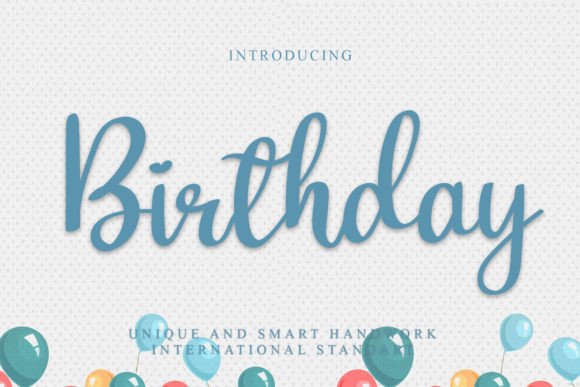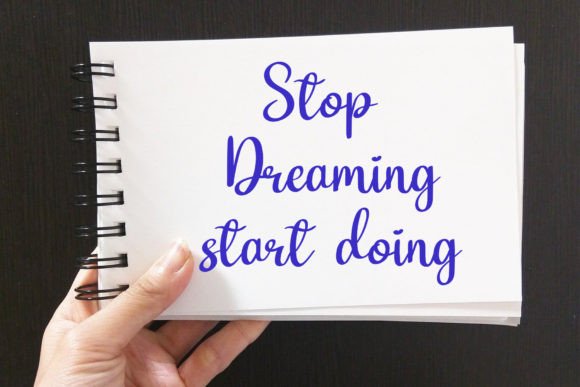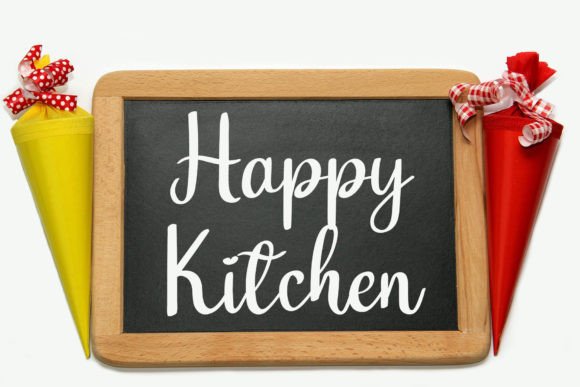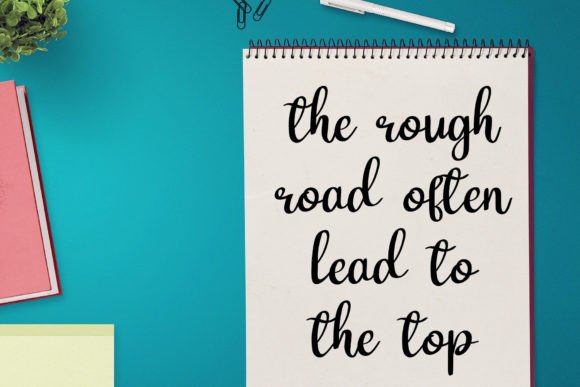
About the Birthday Font
Introducing the Birthday Font, a beautifully crafted typeface designed to elevate your creative projects. Introducing Birthday, a one-of-a-kind, sophisticated typeface that instantly brings an added dash of grace to your creations. Its fluidity and elegance make it a perfect choice for wedding invites, greetings, billboards, logos or business cards, essentially any design that calls for a touch of personal handwriting. Skillfully crafted with an inconsistent baseline, the Birthday font encapsulates the warmth and authenticity of a handmade touch, giving your ideas a vibrant lifelike feel. The best part? Birthday is PUA encoded, providing seamless access to all glyphs and ornate swashes, making your design process a delight!
Birthday Font Usage Examples
Birthday Font Example